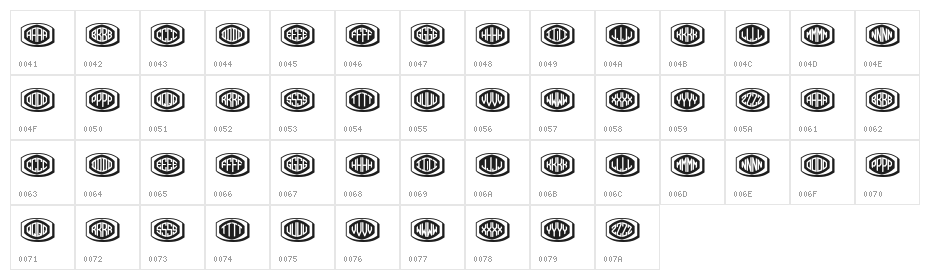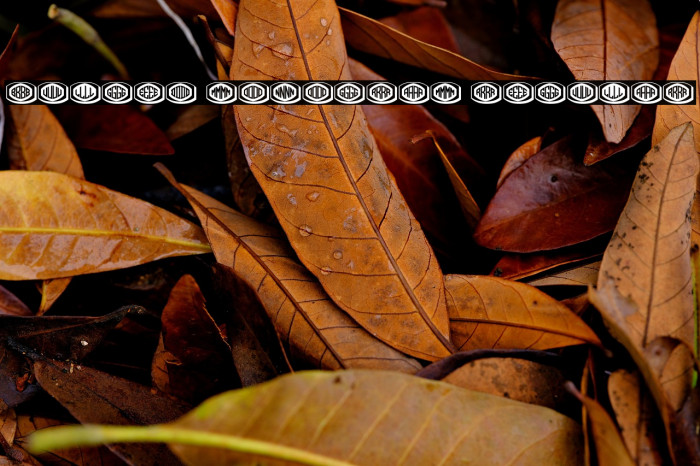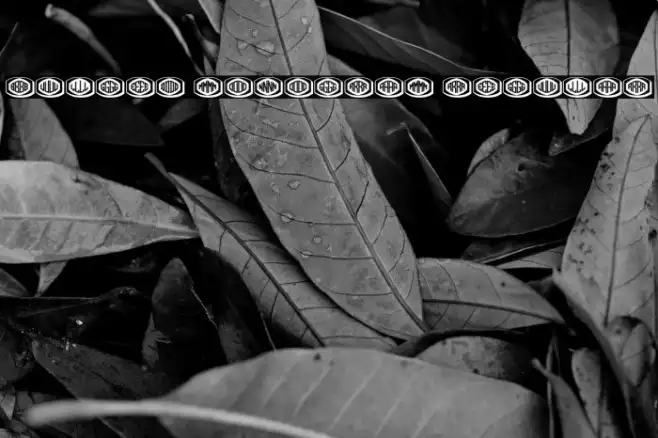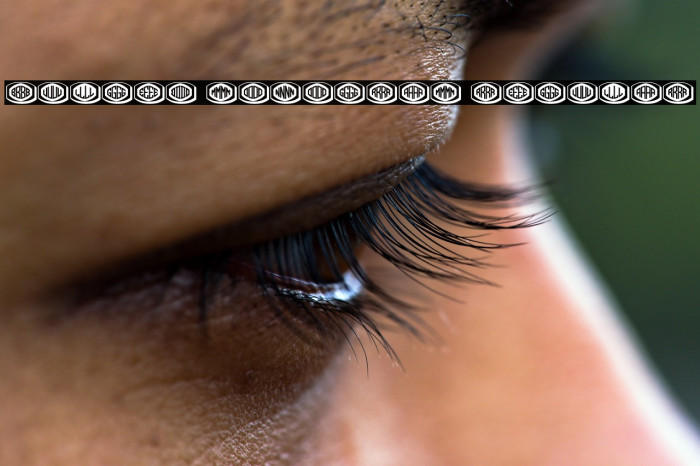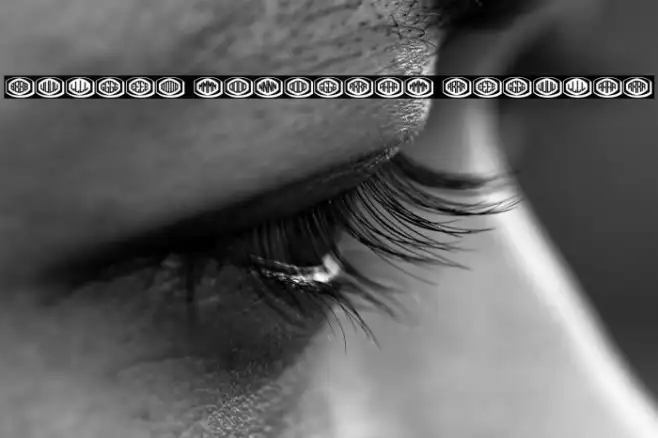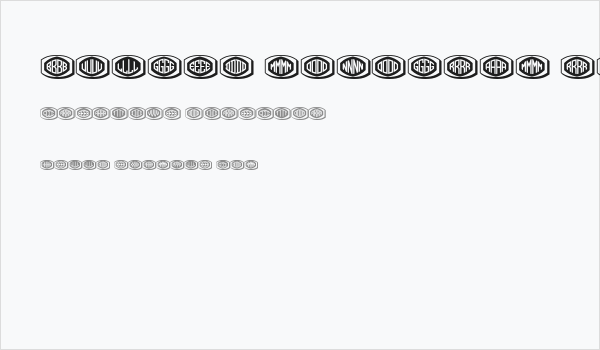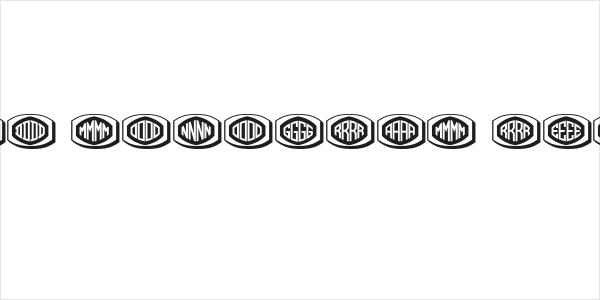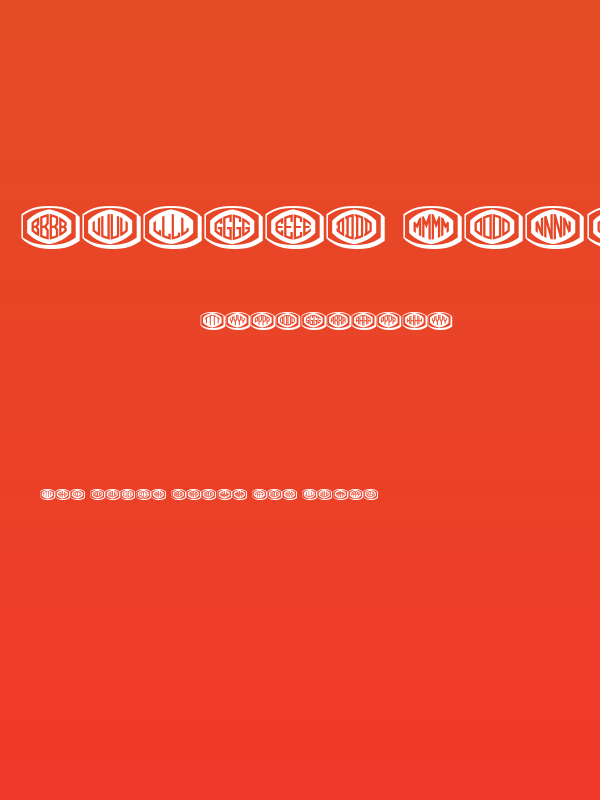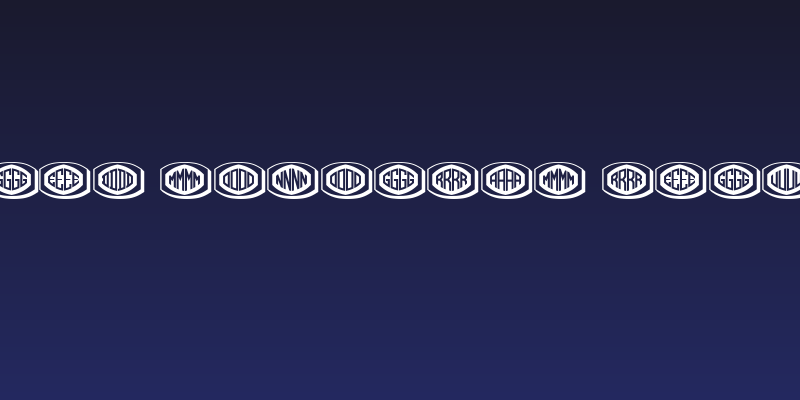
Bulged Monogram Regular Font
Bulged Monogram Regular Description
This font features a unique monogram style with each letter encased in an oval shape, giving it a distinct and decorative appearance. The letters are bold and evenly spaced within the ovals, creating a uniform look across the alphabet. The design is reminiscent of traditional monogram styles, often used for personalization and branding. The boldness of the letters ensures readability, while the oval encasement adds a touch of elegance and formality. This font is particularly suitable for projects that require a classic and sophisticated touch, such as wedding invitations, personalized stationery, or luxury branding.
| Use Case | Logos, Headlines, Decorative elements |
| Proposed Projects | Wedding invitations, personalized stationery, luxury branding, monogrammed products. |